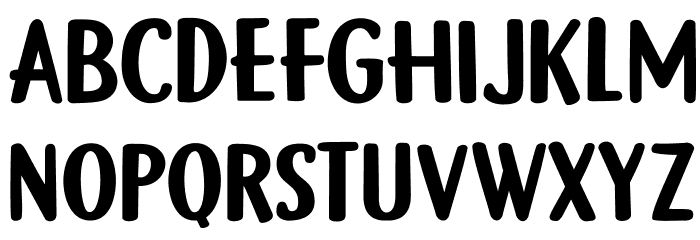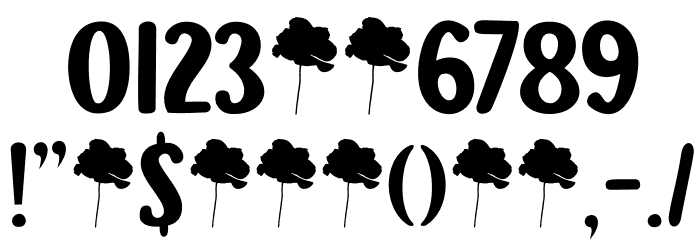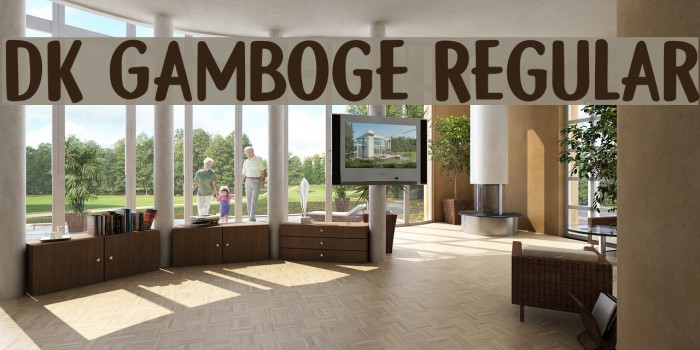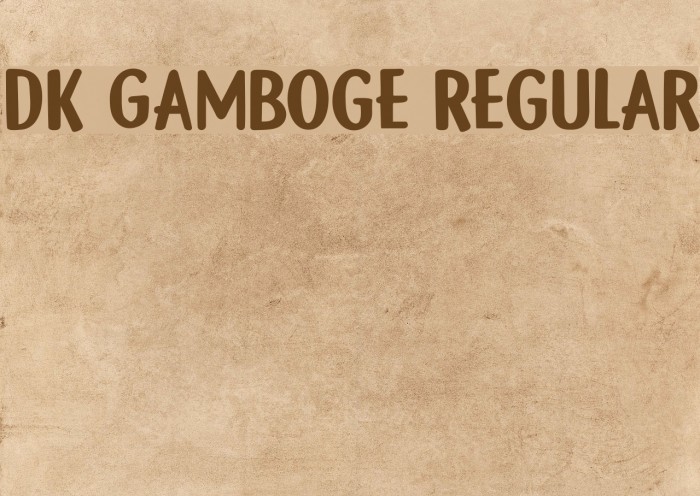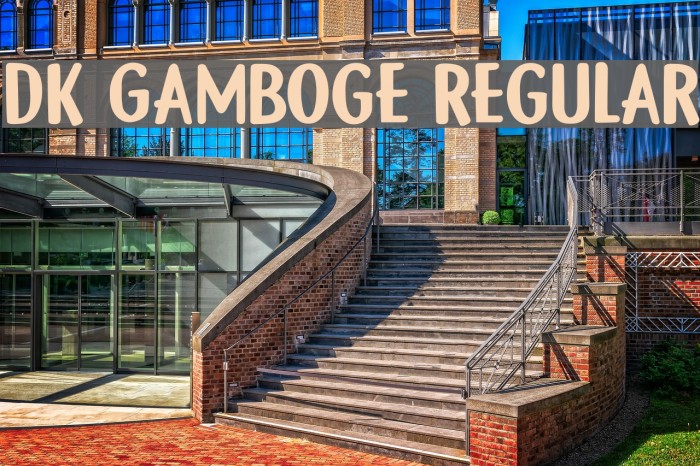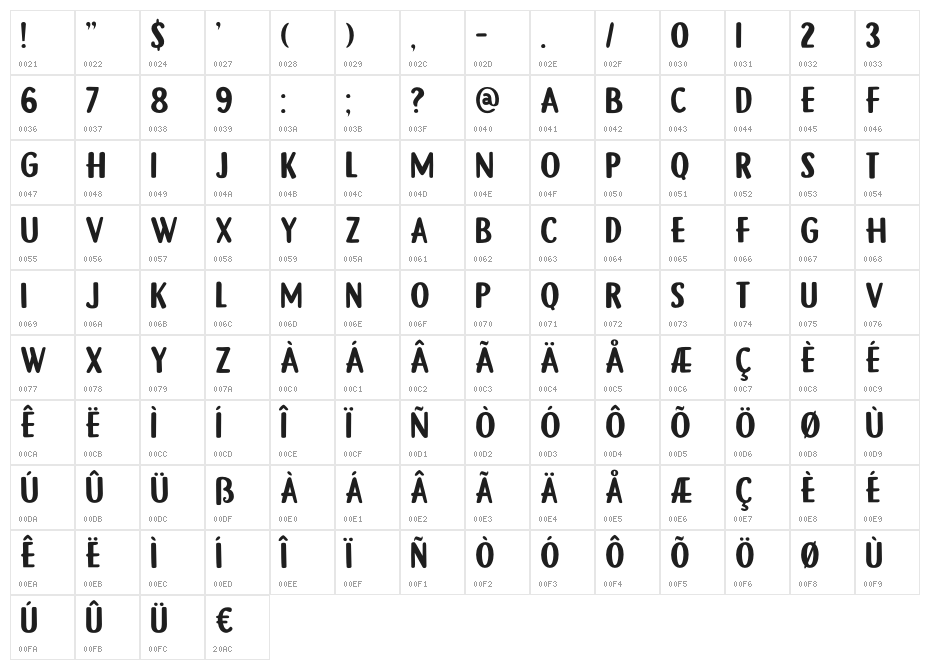
DK Gamboge Regular Font
This font features a playful and bold design with rounded edges and a slightly condensed form. The characters are evenly spaced, providing a balanced and harmonious look. The uppercase letters are prominent and assertive, while the lowercase letters maintain a consistent style with a touch of whimsy. The numerals are clear and easy to read, matching the overall aesthetic. Special characters are included, adding versatility to the font. Its boldness and unique style make it suitable for eye-catching designs.
A playful, bold font with rounded edges and a slightly condensed form.
- Proposed Projects: Ideal for children's books, playful branding, posters, and creative projects that require a fun and engaging typeface.
- Overall Style: Playful, Modern
- Use Case: Headlines, Posters, Branding